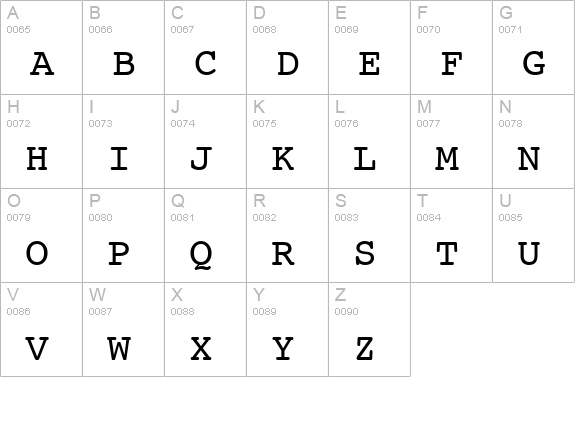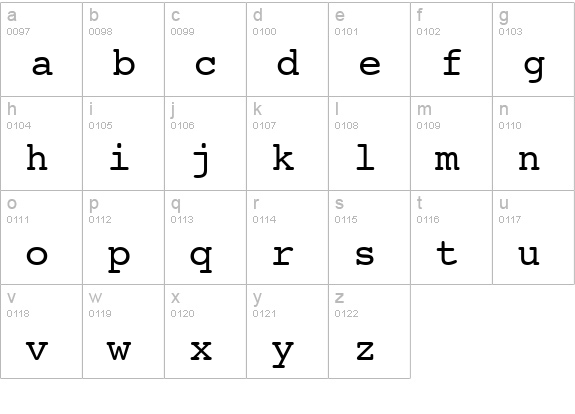
Courier SWA font is a classic monospaced typeface that is perfect for conveying a sense of professionalism and efficiency in your projects. Its clean lines and consistent spacing make it ideal for use in documents, coding, and any other application where precision and readability are key. What sets Courier SWA font apart is that it is not only stylish and versatile, but also completely free for personal and commercial use. You can easily download this font for free at FontsMarket.com, where you will find a wide selection of high-quality fonts to enhance your designs. With Courier SWA font, you can add a touch of sophistication to your work without any cost or hassle.